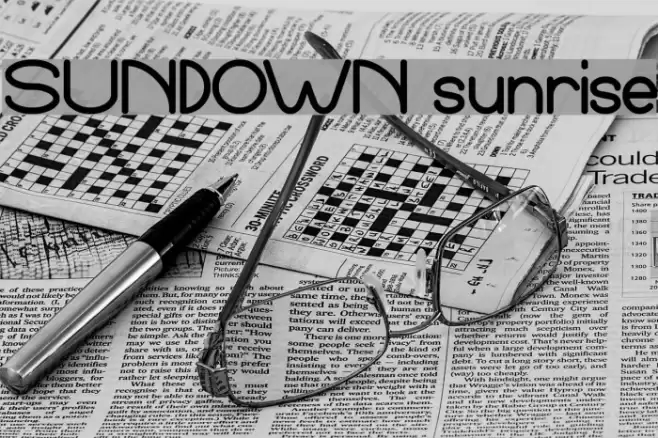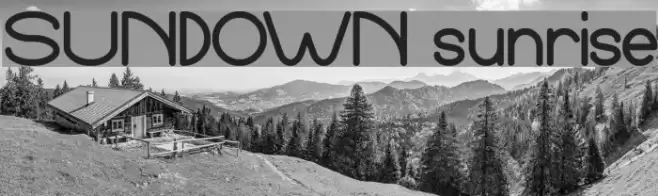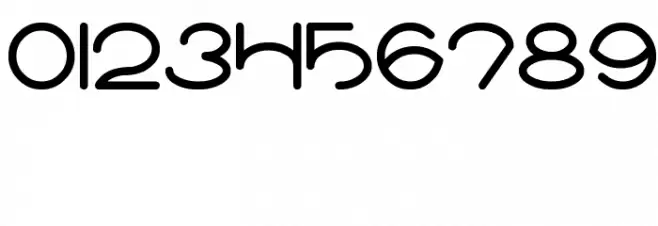
SUNDOWN sunrise Font
SUNDOWN sunrise Description
This font features a modern, rounded style with a playful and approachable aesthetic. The characters are smooth and continuous, with a consistent stroke width that gives it a clean and uniform appearance. The rounded edges and open counters contribute to its friendly and inviting look, making it suitable for a variety of design applications. The numerals and special characters maintain the same rounded and smooth characteristics, ensuring a cohesive look across all elements. This font is ideal for projects that require a contemporary and casual feel.
A modern, rounded font with a playful and approachable style from Uncategorized fonts.
- Proposed Projects: Ideal for children's books, playful branding, casual invitations, and modern web design.
- Use Case: Headlines, Logos, Casual Text